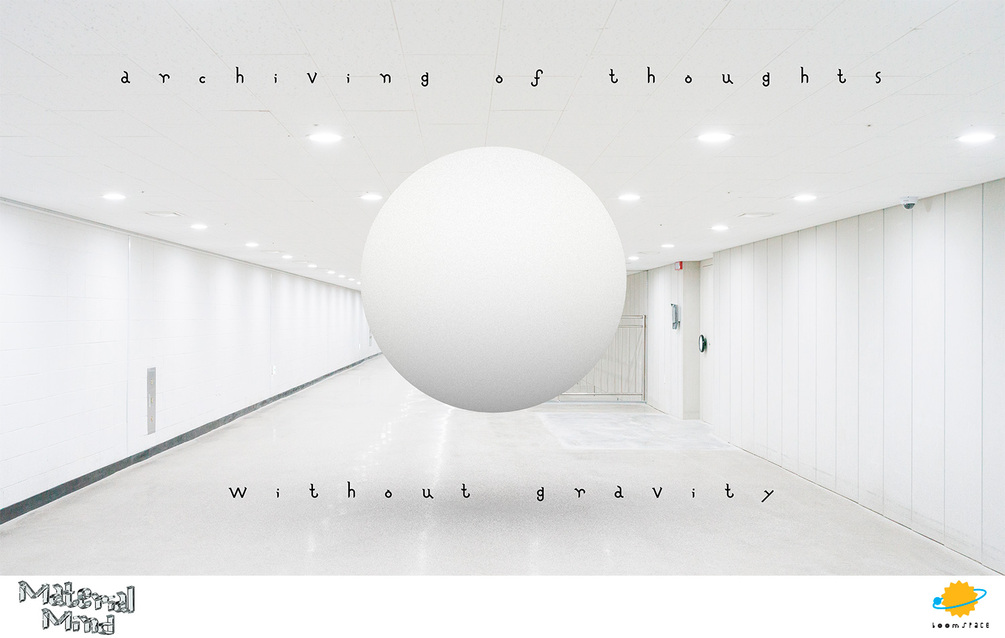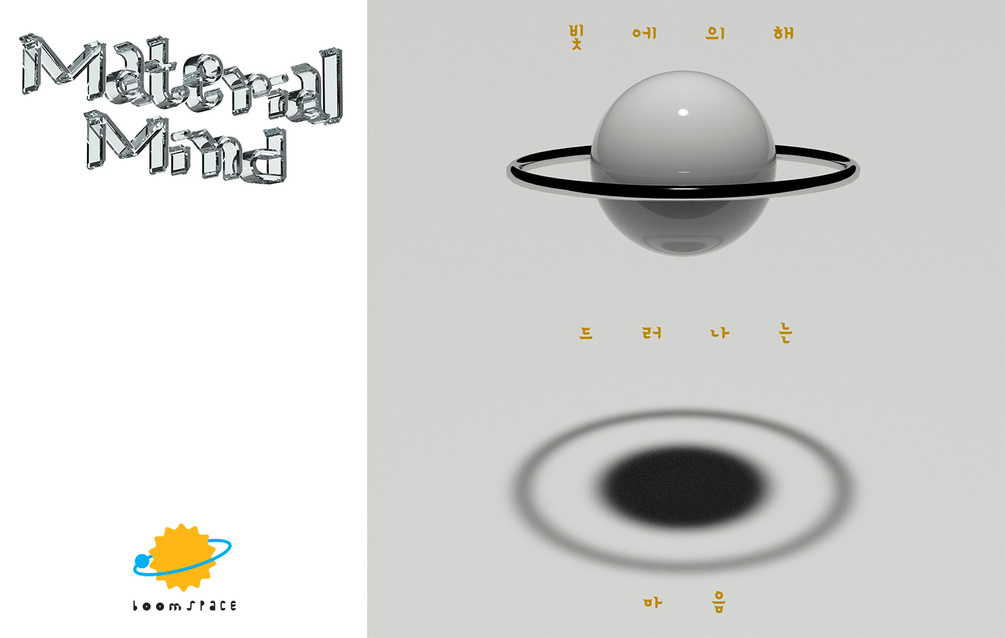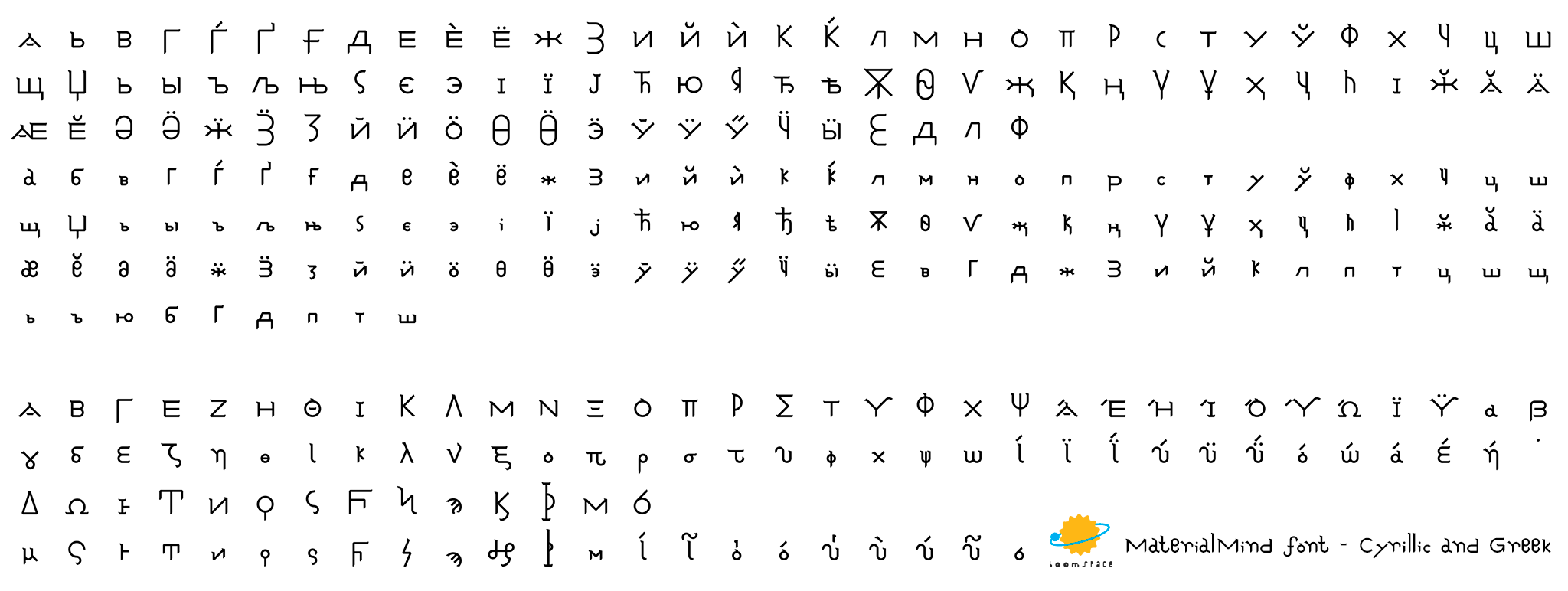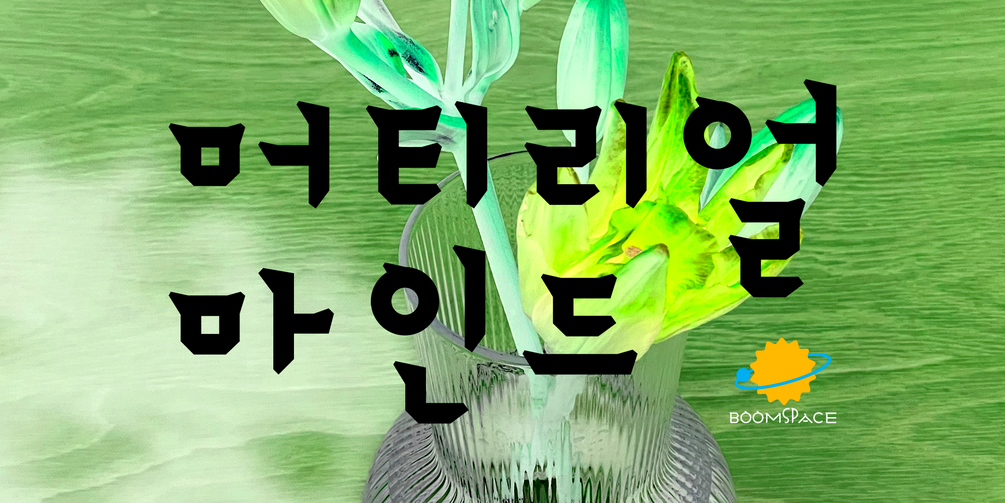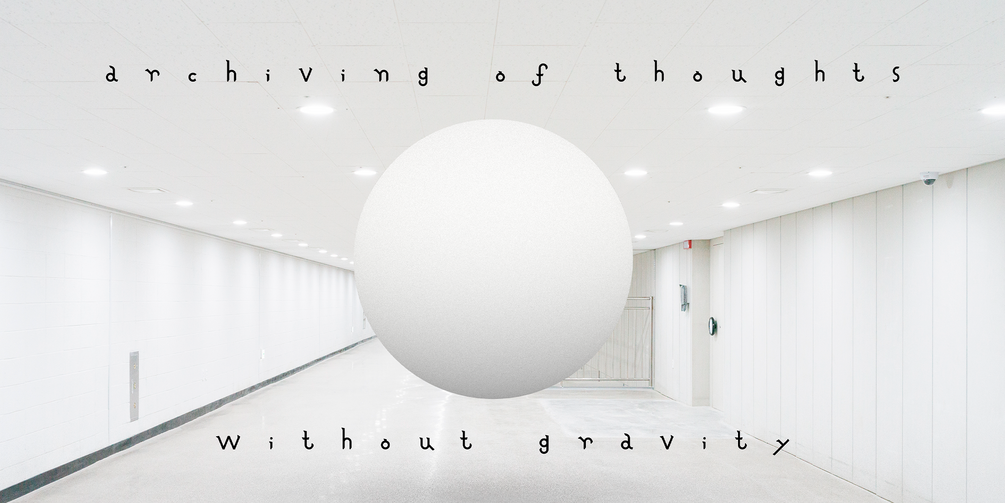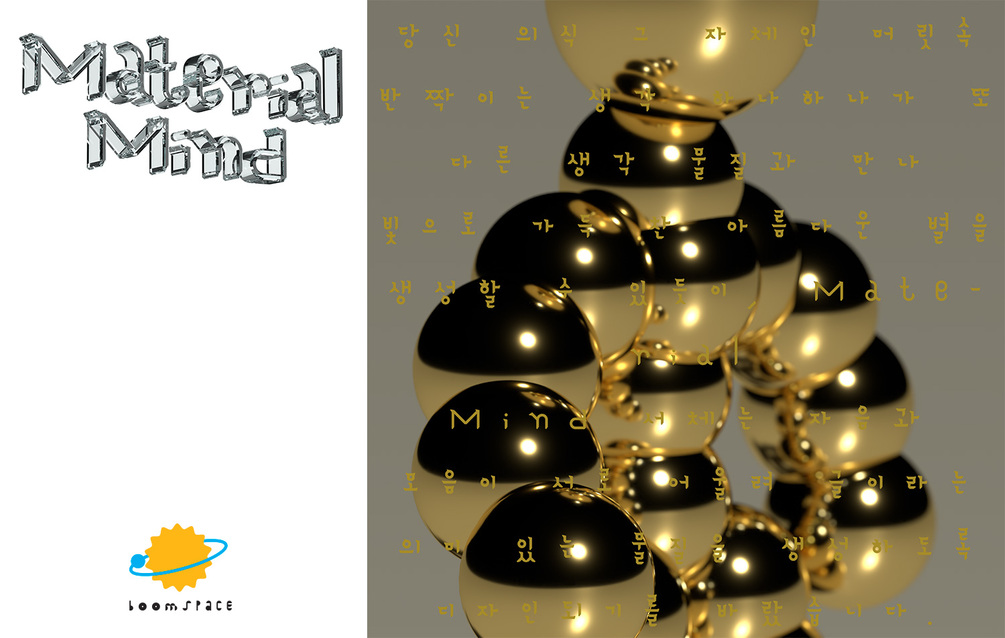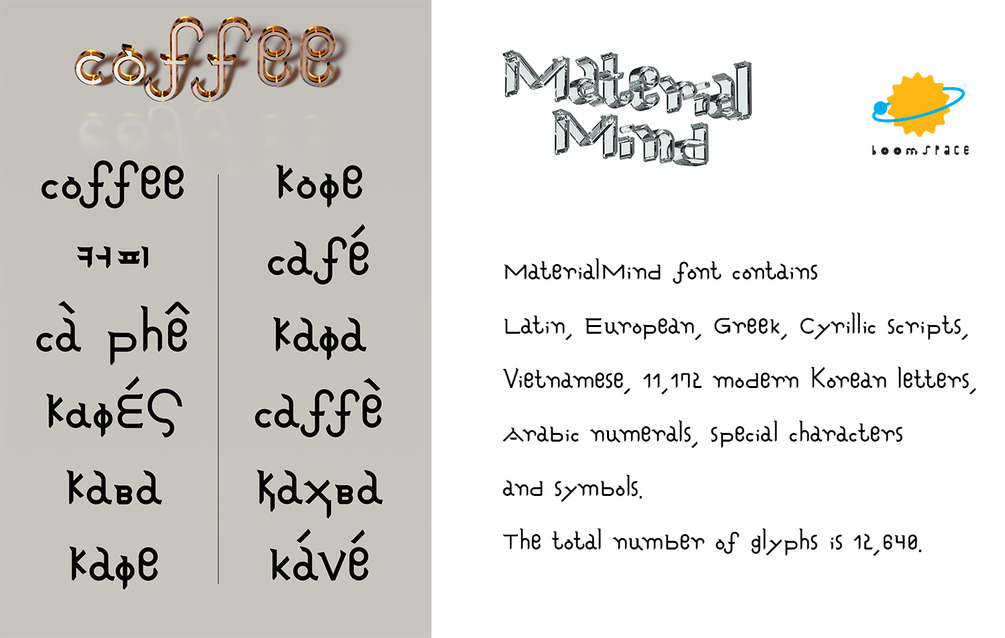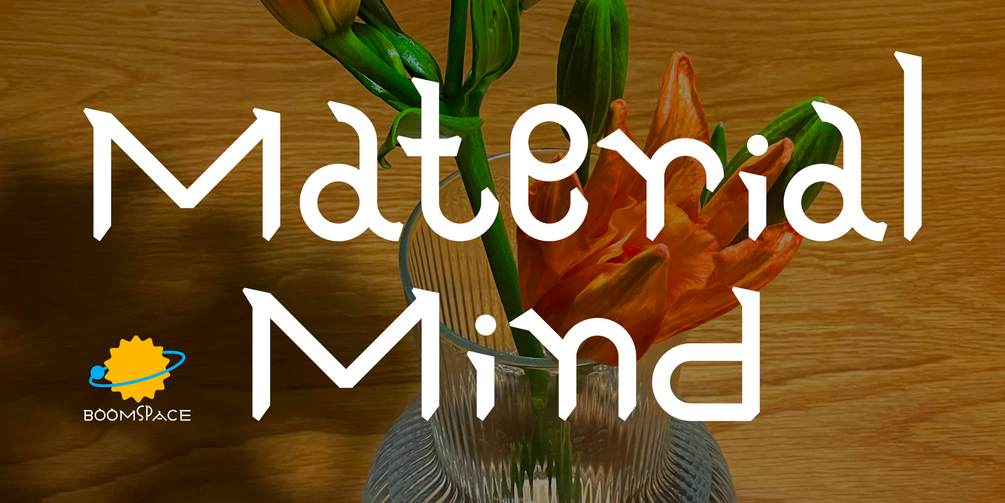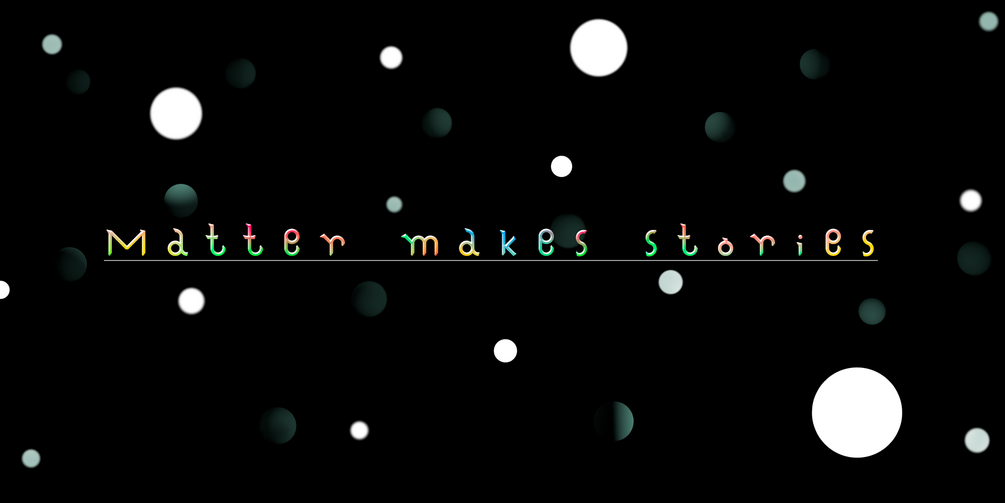
MaterialMind font
Introducing the MaterialMind font!
MaterialMind font contains Latin, European, Greek, Cyrillic, Vietnamese, 11,172 modern Korean letters, Arabic numerals, special characters and symbols.
The total number of glyphs is 12,640.
The development of the MaterialMind typeface get started with BSW’s MATERIAL MIND art project, which expresses human consciousness through materials. Our consciousness viewed from the perspective of materialism, especially physicalism, is no different from chemicals moving through neurons. Consciousness is a story written by light in a dark and vast universe. The MaterialMind typeface makes that story visible.
MaterialMind 서체를 소개합니다!
MaterialMind 서체는 현대 한글 11,172자, 라틴, 유럽, 그리스, 키릴, 베트남, 아라비아 숫자, 특수 문자 그리고 기호를 표현할 수 있습니다.
총 글립스 수는 12,640개입니다.
MaterialMind 서체 개발은 아티스트 BSW가 인간 의식을 물질로 표현하는 MATERIAL MIND 아트 프로젝트를 시작하며 동시에 진행되었습니다. 유물론(Materialism), 그중에서도 물리주의(Physicalism) 입장에서 바라본 인간 의식은 뉴런을 타고 움직이는 화학물질과 다르지 않습니다. 의식은 어둡고 광활한 우주 속 빛이 쓴 이야기지요. MaterialMind 서체가 그 이야기를 눈에 보이게 만들어요.
BOOMSPACE is a design studio run by artist BSW.